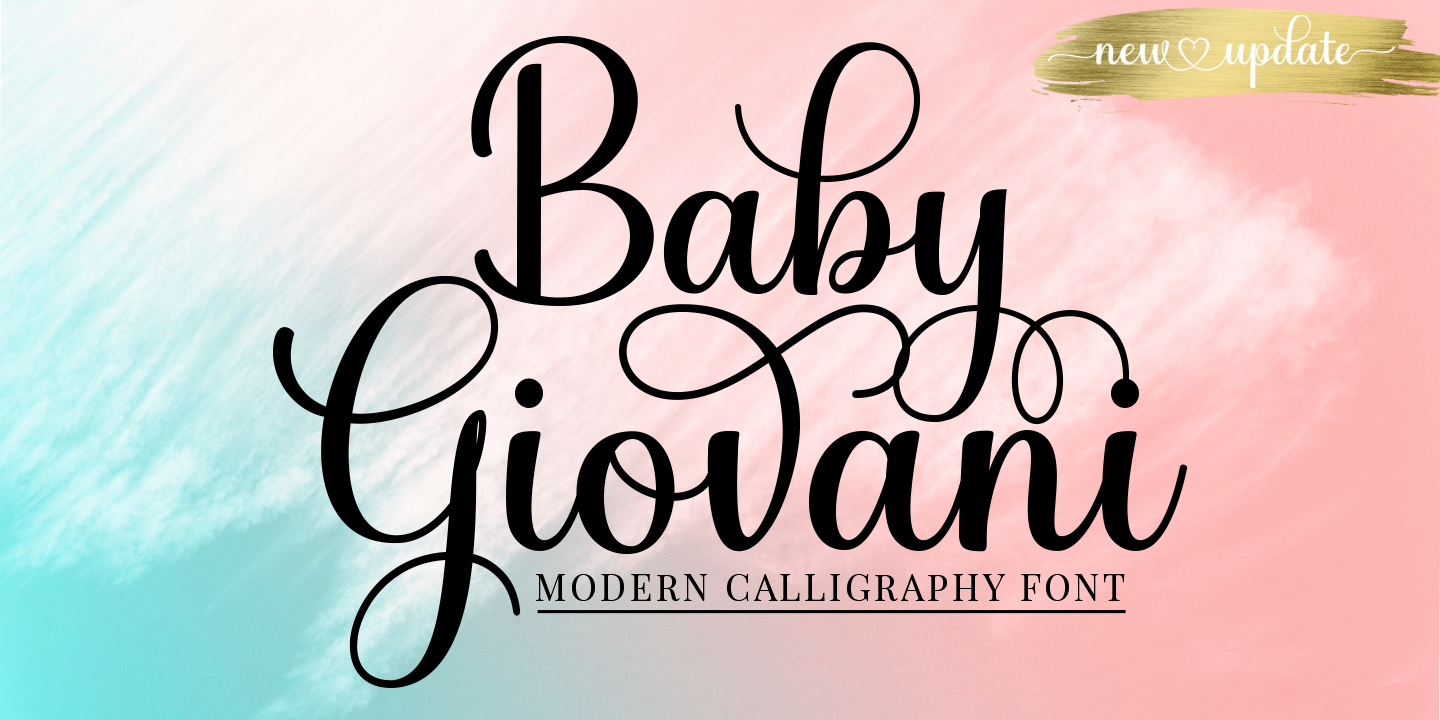
Baby Giovani Script Font is perfect for baby boutique branding, children's clothing labels, nursery room decorations, baby shower invitations, maternity photography logos, pediatric clinic signage, children's book illustrations, family portrait studios, baby product packaging, and gentle parenting blog headers. This adorable typeface brings tender warmth and innocent charm to any design project celebrating childhood, family love, and precious early moments.
Baby Giovani Script Font is exciting because it captures the sweetness and innocence of childhood through its gentle script letterforms that evoke handwritten love notes and tender care. The font's playful yet elegant character and nurturing appeal communicate love, protection, and precious memories, making it perfect for brands that want to celebrate family bonds and appeal to parents seeking beautiful, heartfelt design for their little ones.
Baby Giovani Script Font family includes multiple weights and styles: Regular, Bold, Light, Medium, Italic, Condensed, Extended, Playful, Gentle, and Sweet variants. Each style preserves the distinctive tender character while providing comprehensive options for creating loving family branding and nurturing communications that celebrate both childhood wonder and parental devotion across various family-oriented applications.
Whether you're designing for baby brands, family services, or children's products, Baby Giovani Script Font Free Download delivers the gentle sweetness that resonates with loving parents and family-focused markets. This heartwarming typeface combines innocent charm with contemporary functionality, making it essential for projects requiring both emotional connection and professional presentation. The font's tender presence ensures memorable impact in family and children's contexts.